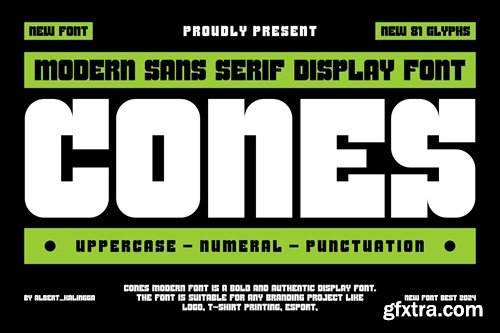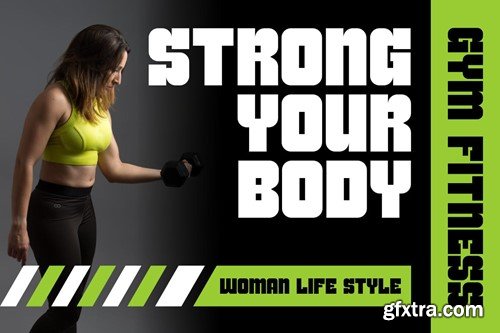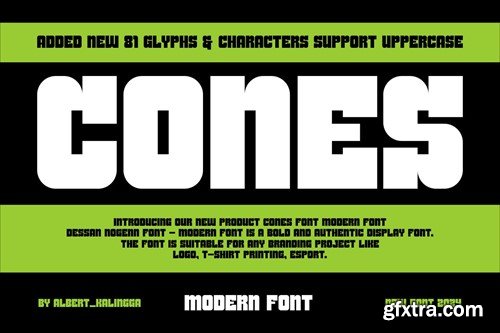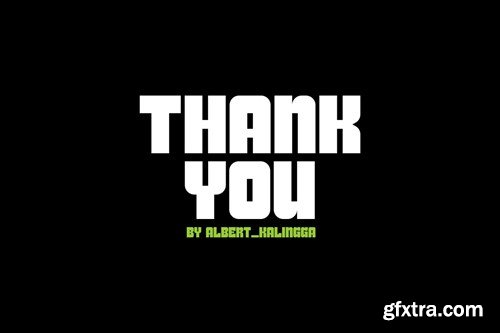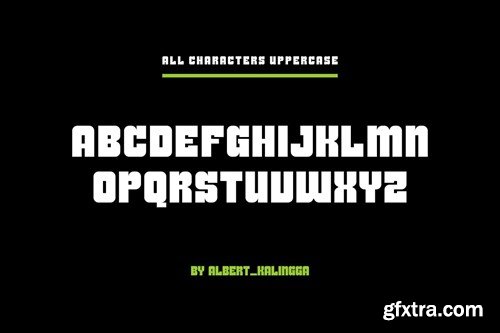
Cones Font
Introducing our new product Cones Font - Modern Font is a bold and authentic display font. The font is suitable for any branding project like logo, esport, and many more. outstanding in a wide range of contexts. availlable